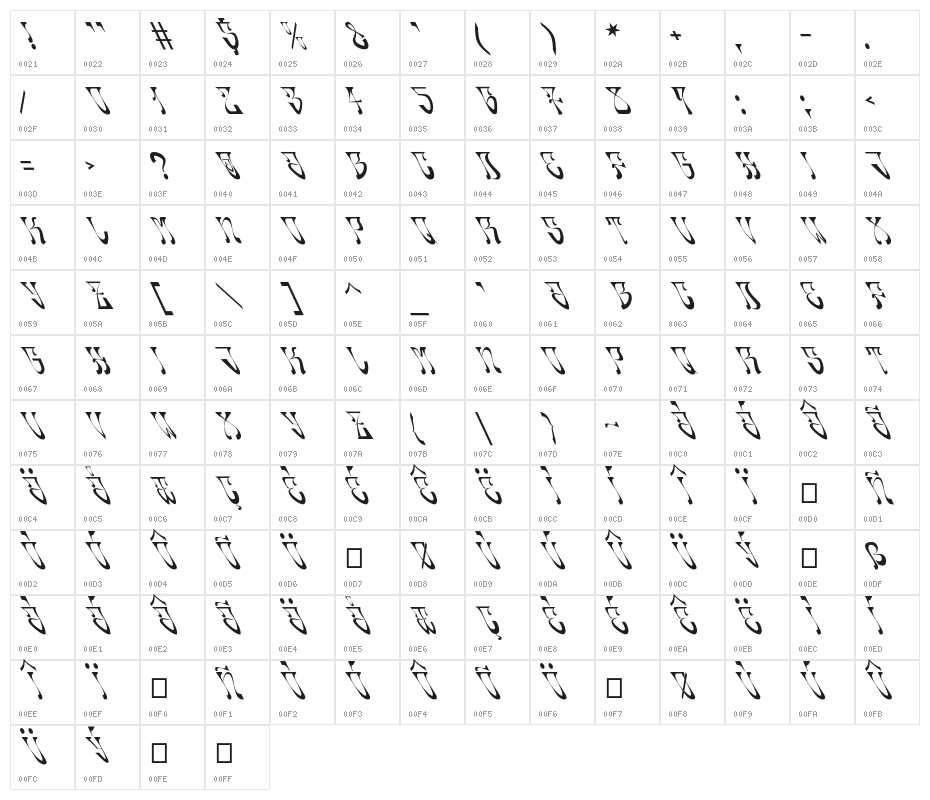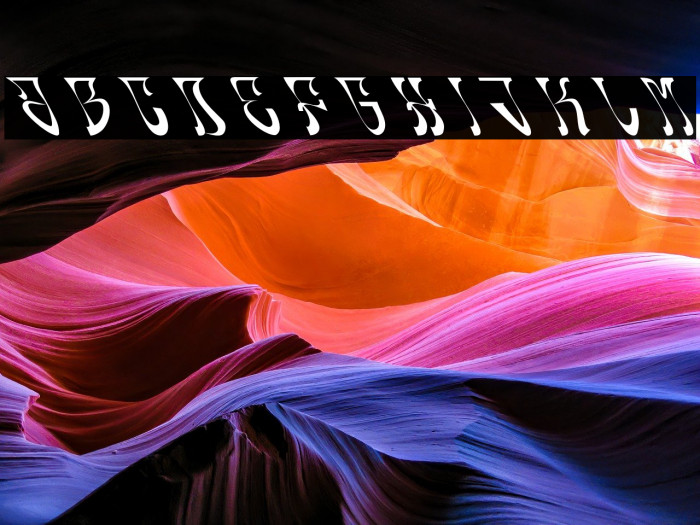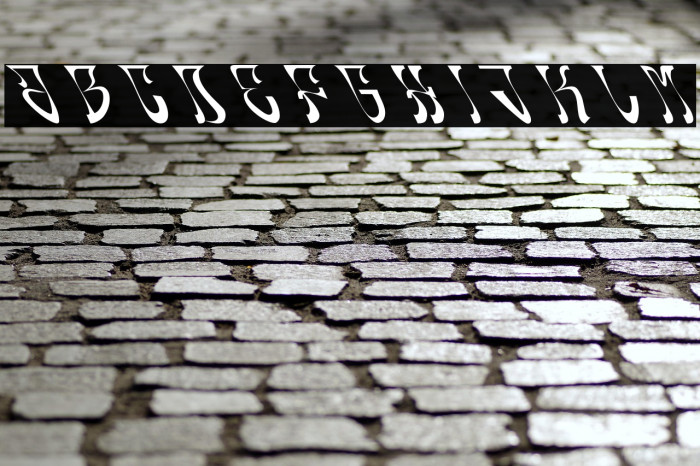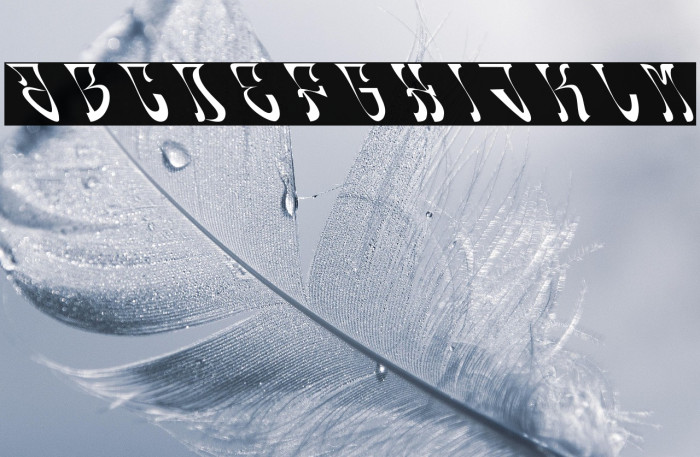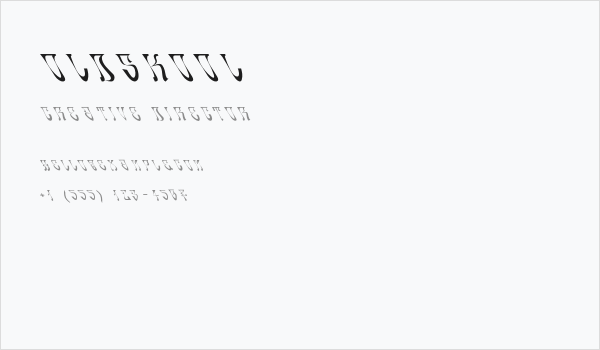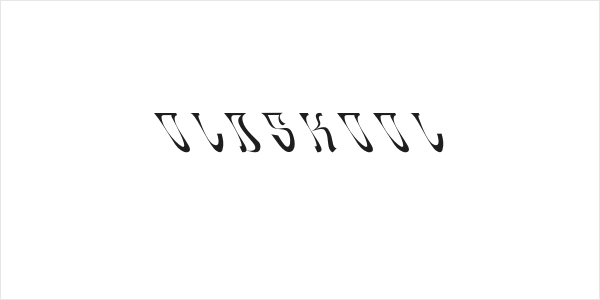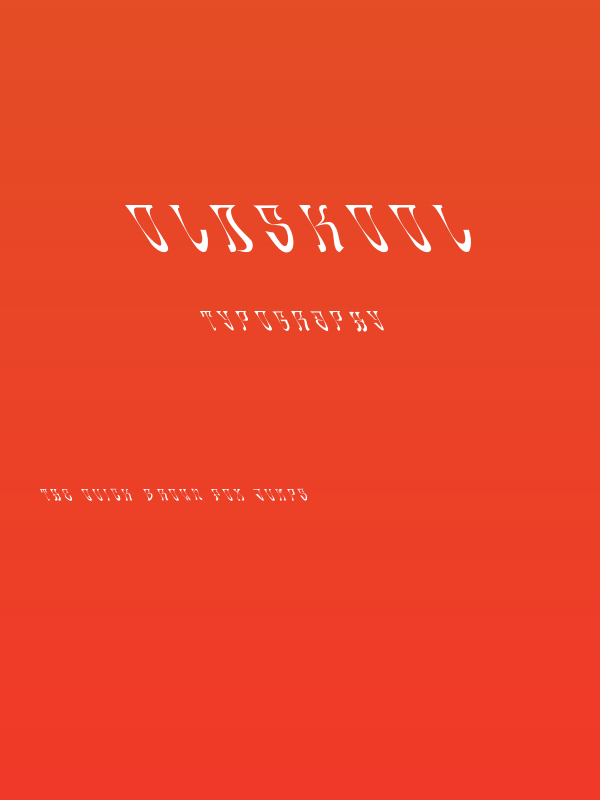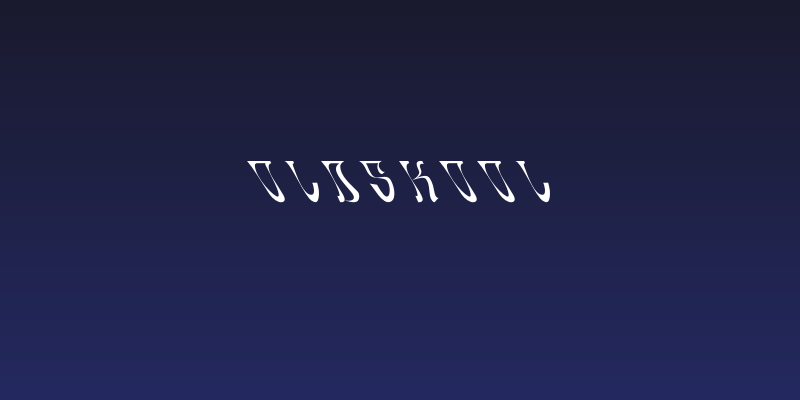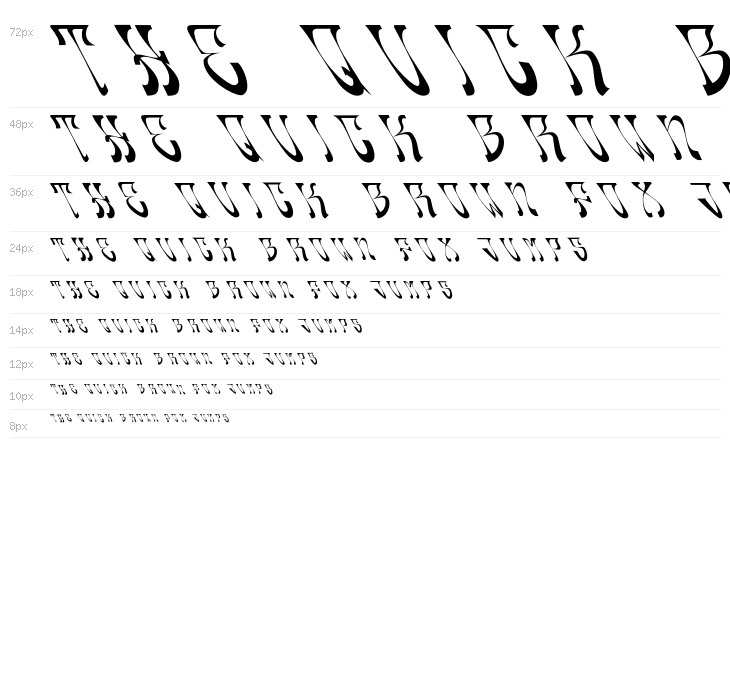
Oldskool Font
Oldskool Description
This font features a bold and dynamic style with a distinct slant, giving it a sense of motion and energy. The characters have a unique, artistic flair with exaggerated curves and sharp angles, creating a striking visual impact. The uppercase and lowercase letters maintain a consistent design, while the numbers and special characters complement the overall aesthetic. The font's boldness and high contrast between thick and thin strokes enhance its visibility and readability, making it suitable for attention-grabbing designs.
| Proposed Projects | Ideal for posters, logos, branding, and any design requiring a bold, artistic touch. |